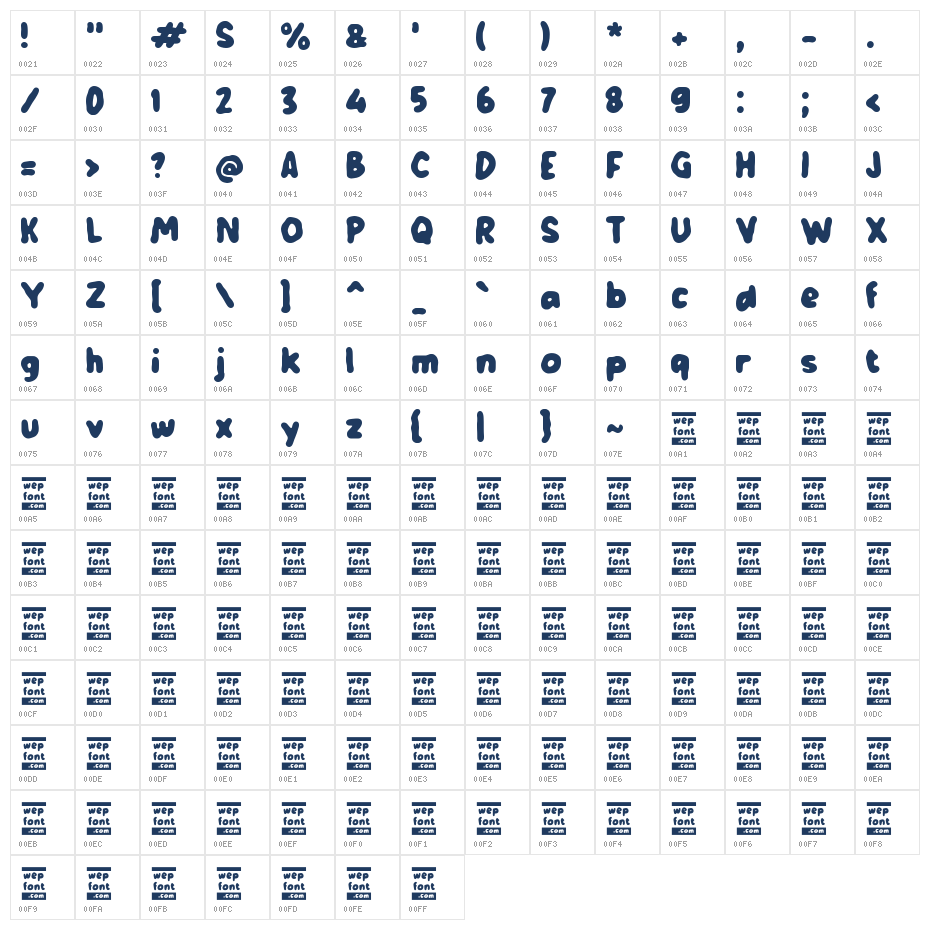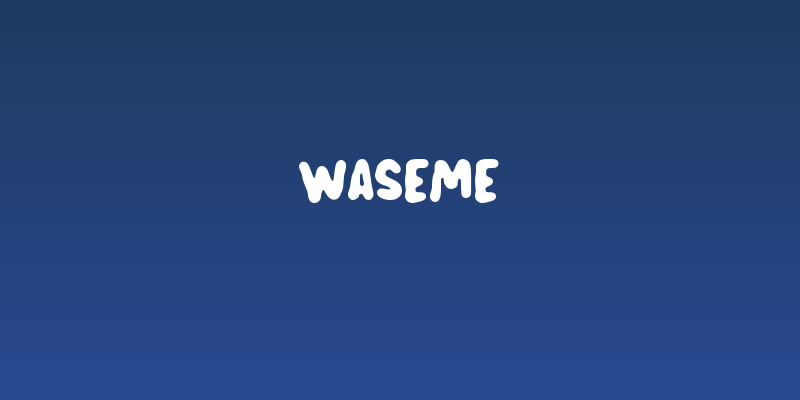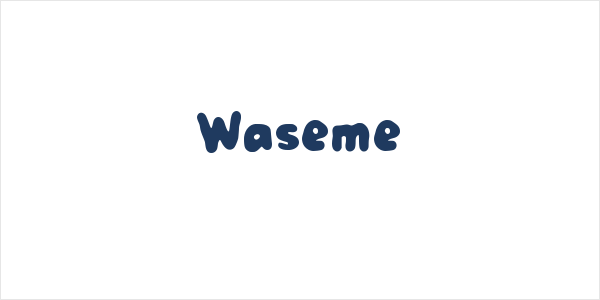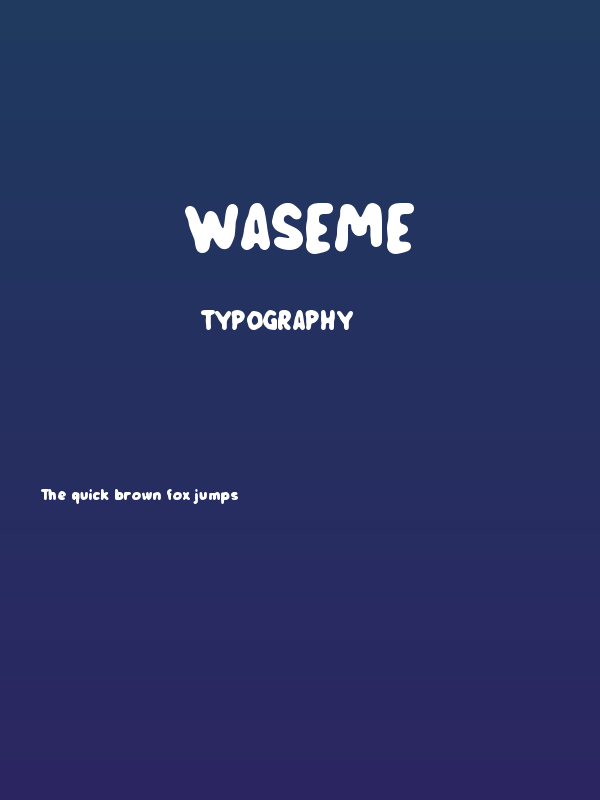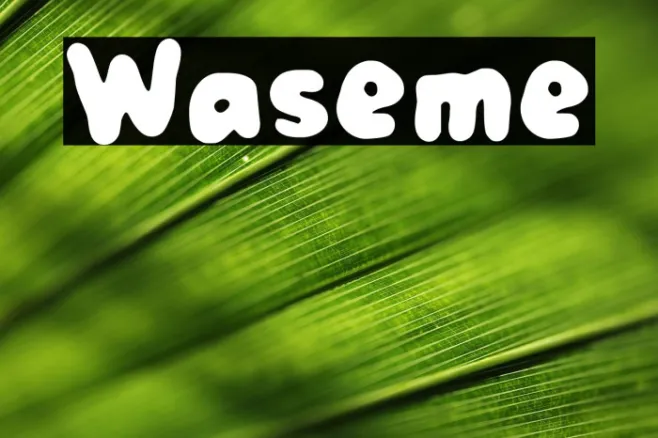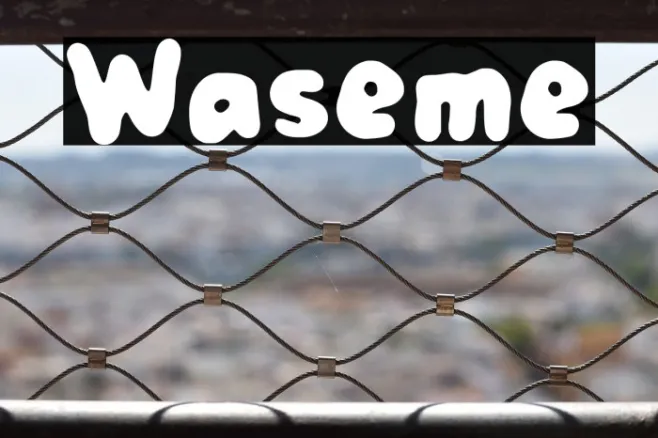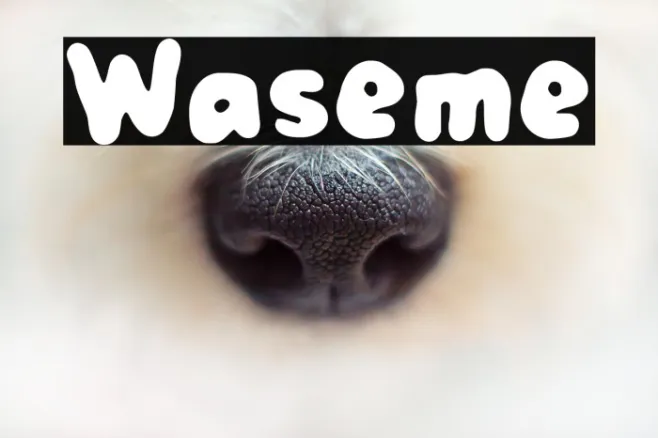
Waseme Font
Waseme Description
A playful, rounded, and bold handwritten style font with a casual and friendly appearance.
| Overall Style | Casual, Playful, Friendly |
| Use Case | Headlines, Logos, Posters, Children's materials |